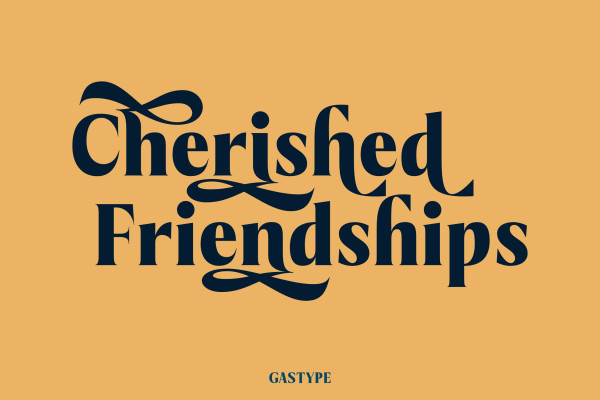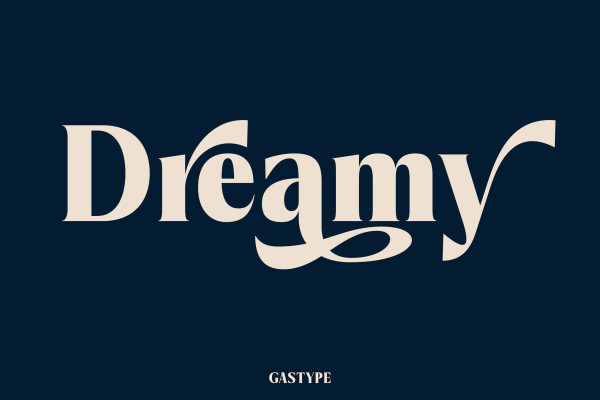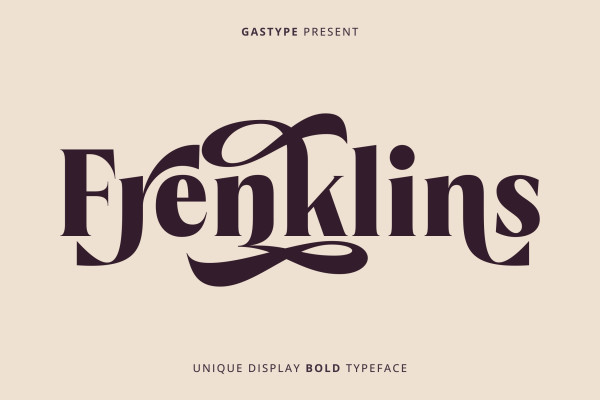
Frenklins Font
Frenklins Font is a captivating vintage-inspired font designed for logos, trademarks, headlines, and more. It offers versatility with Basic Latin Glyphs and various alternates for unique designs. With support for 64 languages, it ensures seamless communication with a global audience while retaining its vintage charm. The font also includes a Private Use Area (PUA) feature for additional customization. Overall, Frenklins Font is a powerful font that combines boldness, vintage appeal, and adaptability to elevate your creative projects and leave a lasting impression.